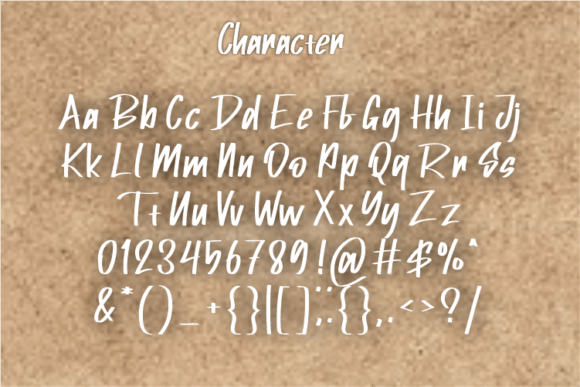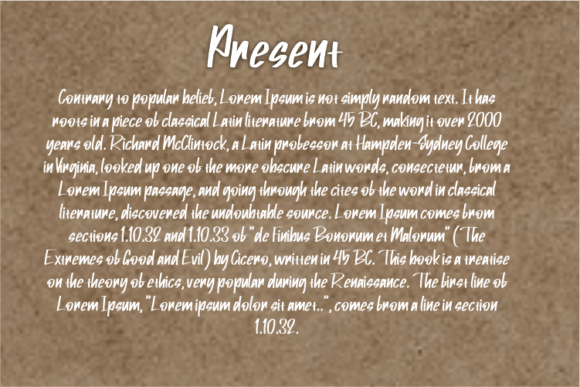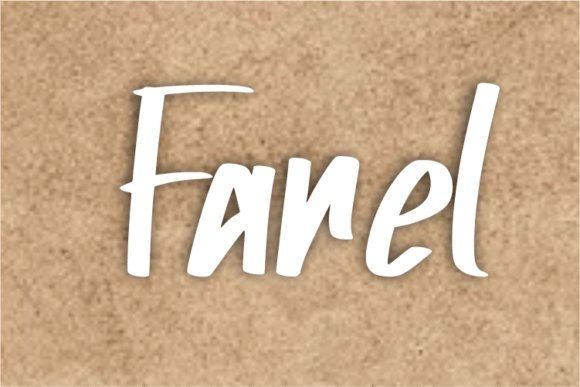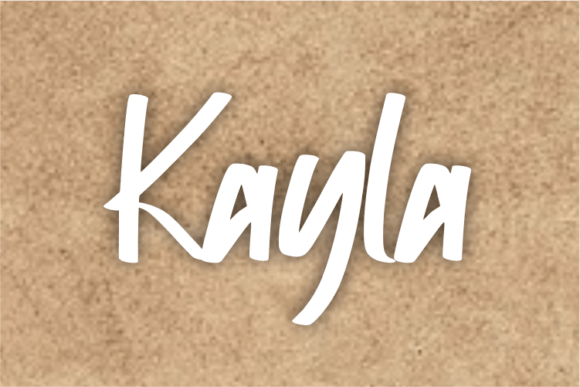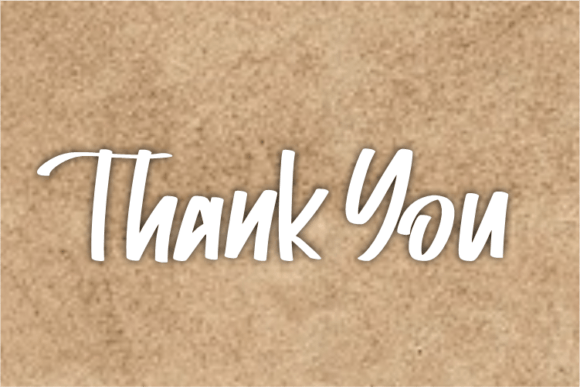
Introduction to Ora Umum Font Font
Fonts play a crucial role in design, and the Ora Umum Font font is a typeface that brings both character and versatility to any project. Whether you’re working on a branding project, a website, or a print design, the Ora Umum Font font offers a unique style that can elevate your work.
Ora Umum is a trendy handwritten font with a contemporary atmosphere and impeccable form, inspired by timeless classic calligraphy.
It will add elegance and class to any of your design projects .
Key Features of Ora Umum Font Font
Why Choose Ora Umum Font Font?
The Ora Umum Font font is more than just a typeface – it’s a design tool that helps you communicate your message with style and clarity. Its unique character set and versatile design make it suitable for a wide range of applications, from elegant invitations to bold headlines.
With its carefully crafted letterforms and balanced proportions, the Ora Umum Font font ensures readability and visual appeal across all mediums.
What makes Ora Umum Font font special?
The Ora Umum Font font stands out with its unique design, exceptional readability, and versatility across various design applications.